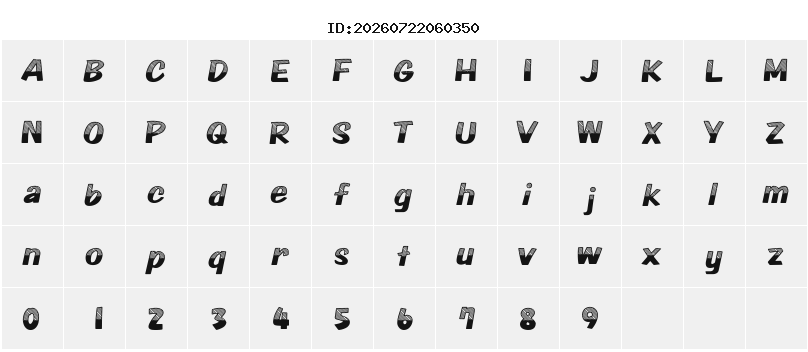
• Font Name: HtWang NewArt-SemiTone
About HtWang NewArt-SemiTone.ttf
HtWang NewArt-SemiTone.ttf is a modern, elegant sans-serif font designed for ultimate readability and visual harmony. Perfect for branding, headlines, web design, and print materials.